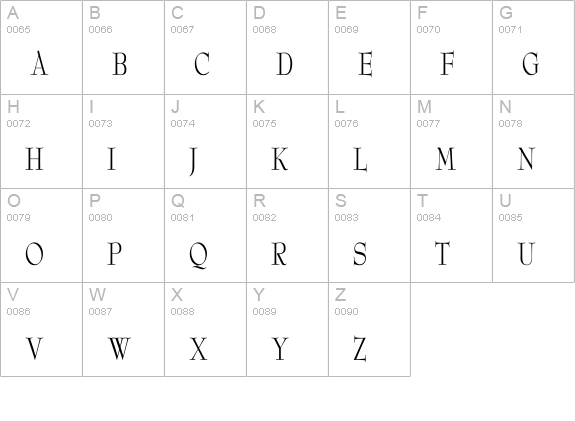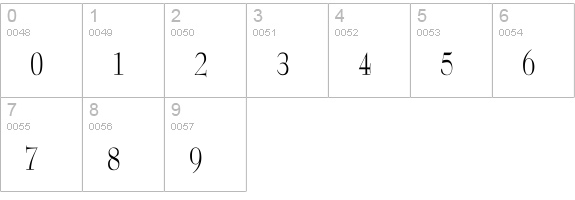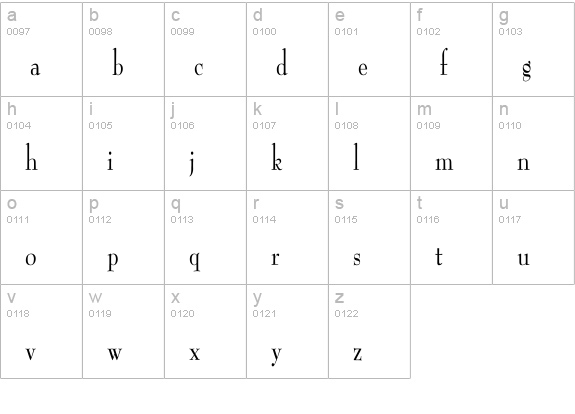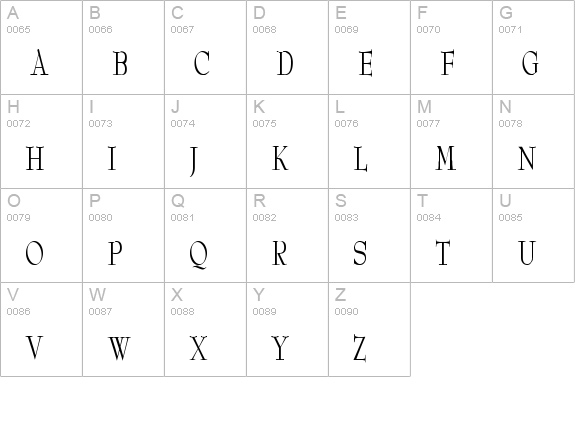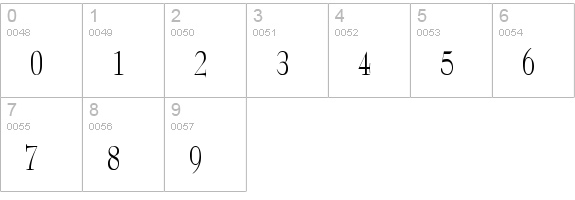
ReedFont Cn Font Details
ReedFont Cn is a stunning and versatile font that will surely captivate your audience with its elegant and modern design. This font exudes sophistication and professionalism, making it a perfect choice for a variety of creative projects. With its clean lines and smooth curves, ReedFont Cn adds a touch of elegance to any design. Whether you're creating a logo, designing a website, or working on a branding project, this font will elevate your work to the next level. One of the best things about ReedFont Cn is that it is free! Yes, you read that right. This incredible font is freely available to download at FontsMarket.com. Now you can enjoy the beauty and versatility of ReedFont Cn without having to spend a dime. Not only is ReedFont Cn visually appealing, but it is also incredibly easy to use. Its well-crafted letterforms ensure legibility at any size, making it suitable for both print and digital applications. Whether you're using it for headlines, body text, or even captions, ReedFont Cn delivers a flawless reading experience. Moreover, ReedFont Cn offers a wide range of character sets and language support, making it accessible to designers from all around the world. Its compatibility with various design software ensures a seamless integration into your workflow. So why wait? Download ReedFont Cn today from FontsMarket.com and experience the beauty of this remarkable font. Whether you're a professional designer or a passionate hobbyist, ReedFont Cn will undoubtedly become an essential tool in your creative arsenal. Don't miss out on this incredible opportunity to enhance your designs with a free, high-quality font.